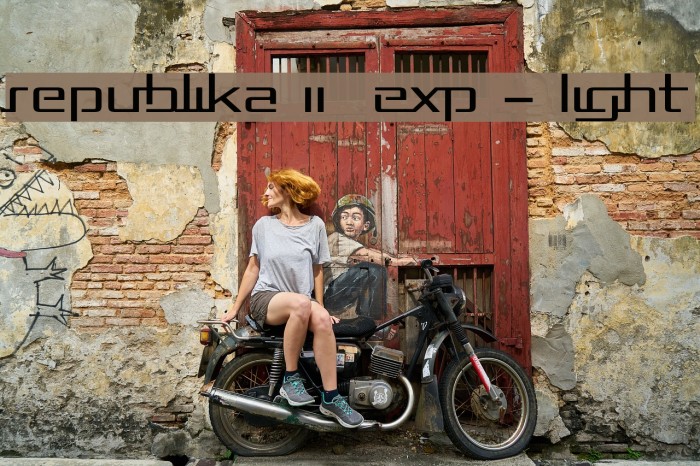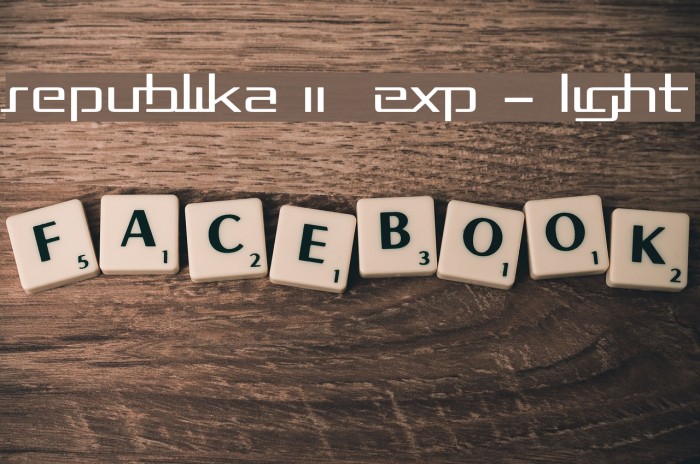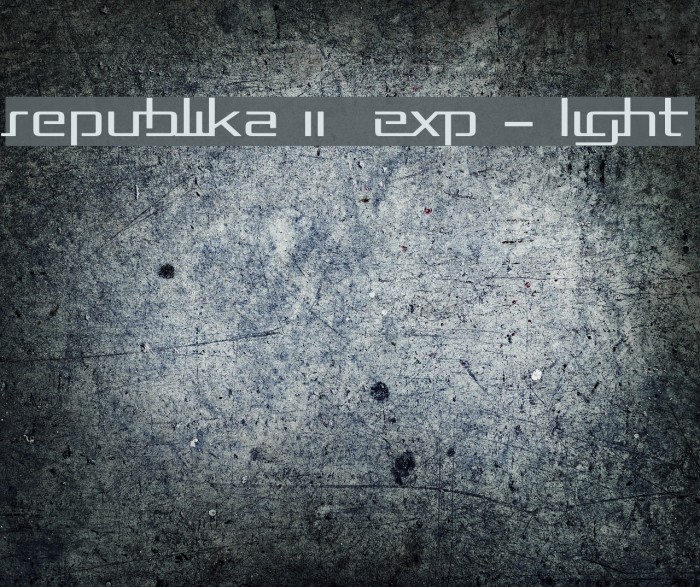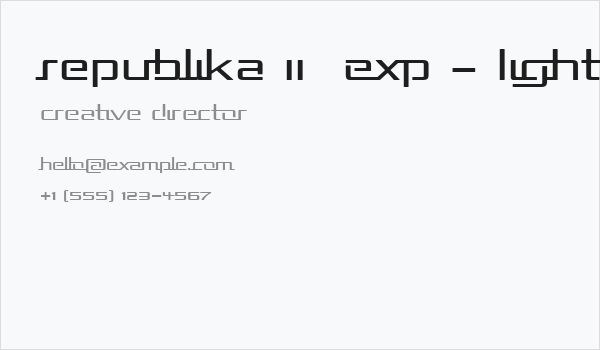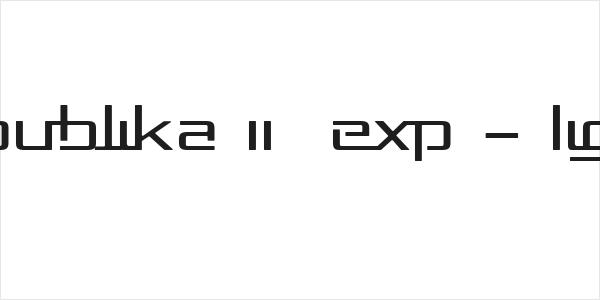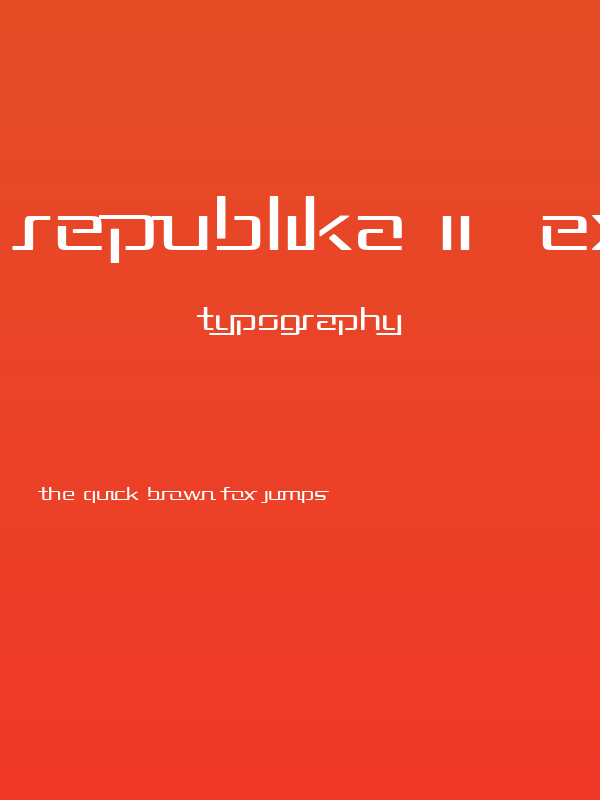
Republika II Exp - Light Font
Republika II Exp - Light Description
This font features a modern, geometric design with a distinct futuristic appeal. The characters are constructed with clean, straight lines and sharp angles, giving it a sleek and contemporary look. The uppercase and lowercase letters maintain a consistent style, with a uniform height that enhances readability. The numerals and special characters are designed to match the overall aesthetic, ensuring a cohesive appearance across all text. This font's unique style makes it suitable for projects that aim to convey innovation and modernity.
| Proposed Projects | Ideal for tech branding, digital interfaces, futuristic posters, and modern advertising campaigns. |